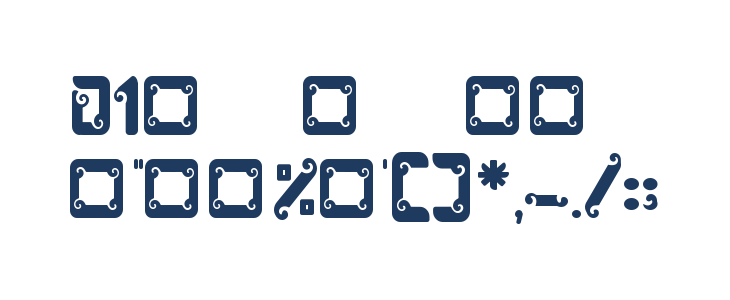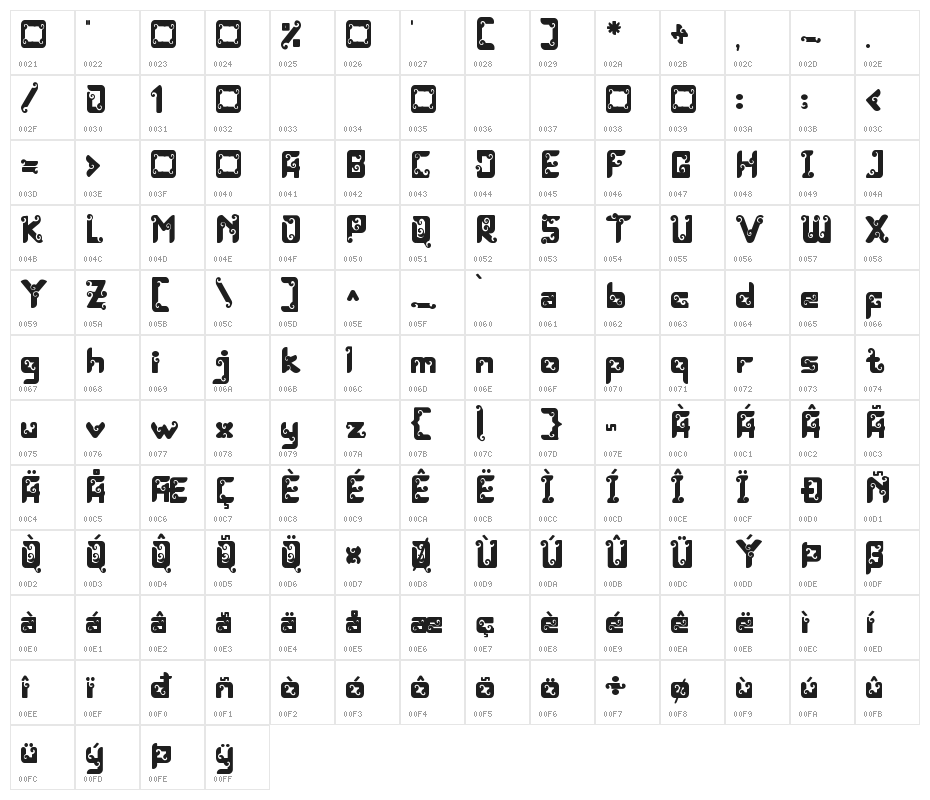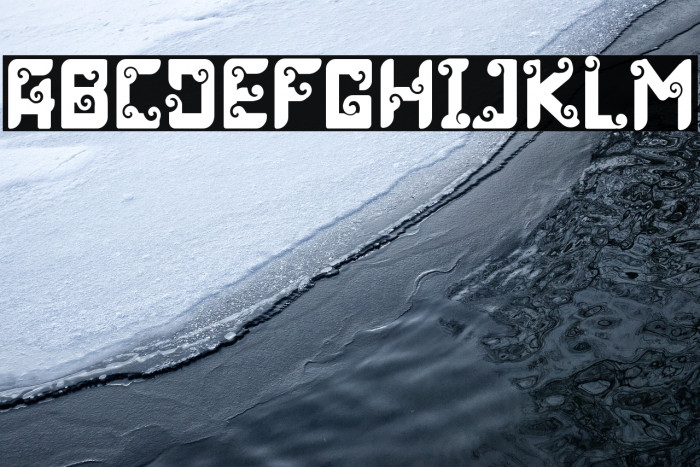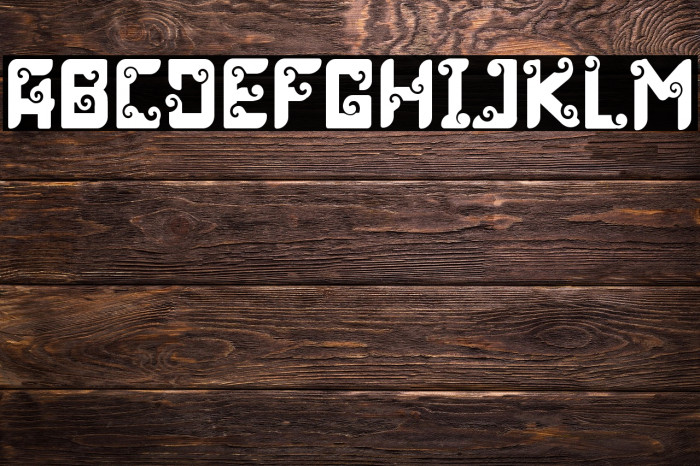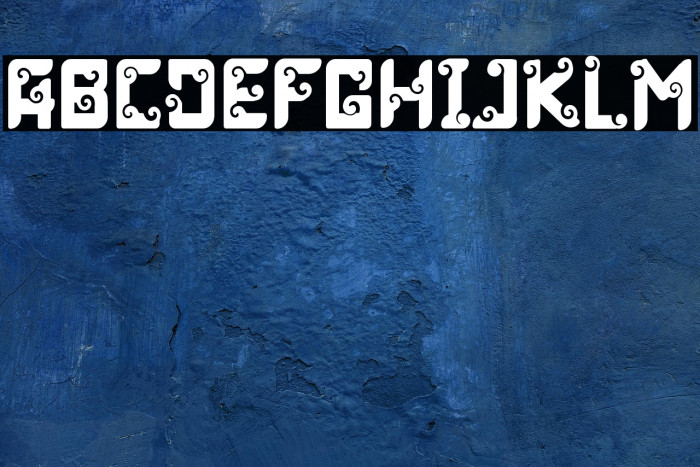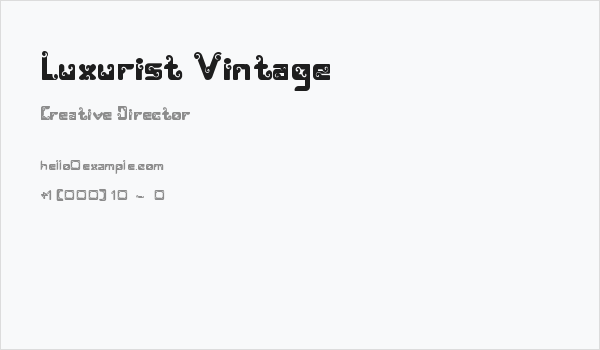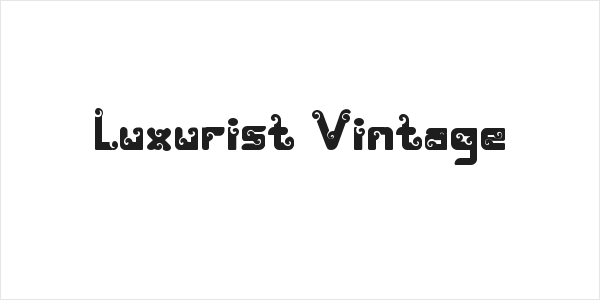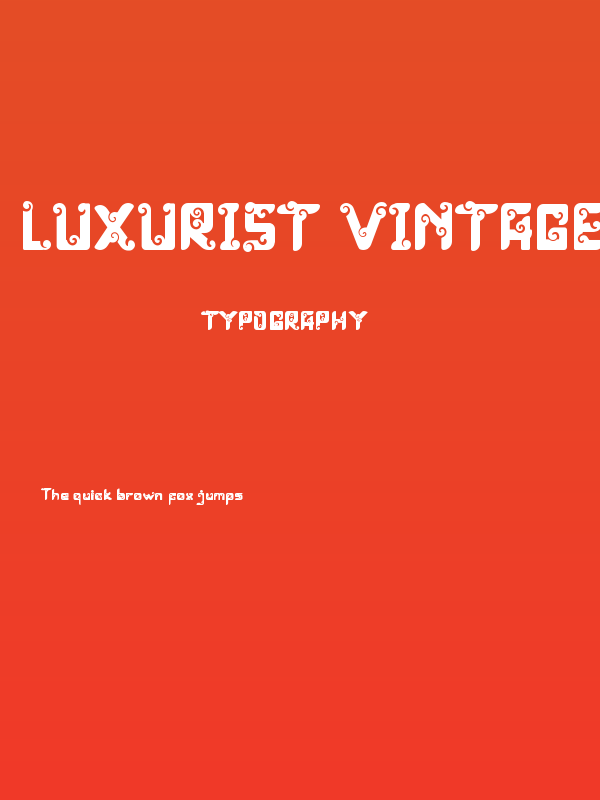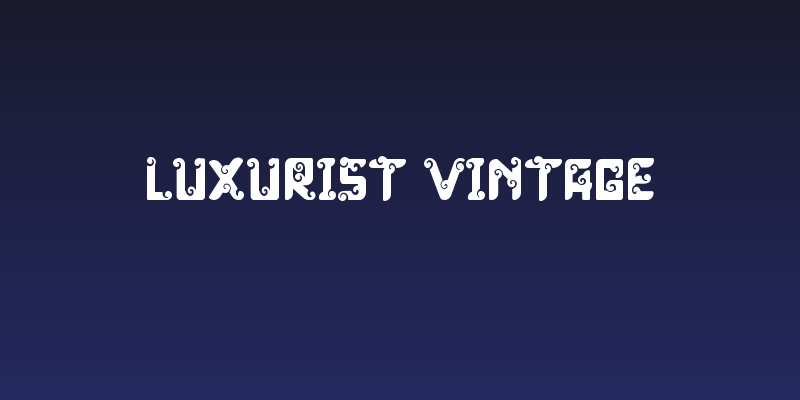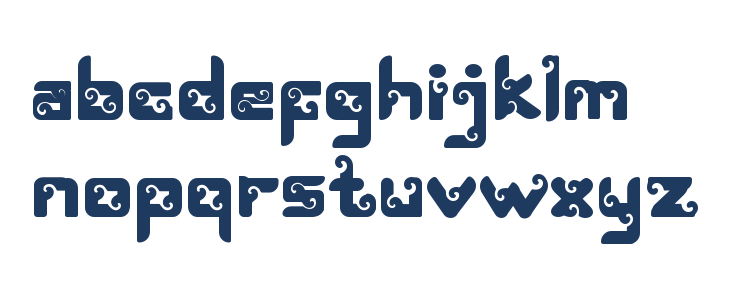
Luxurist Vintage Font
Luxurist Vintage Description
This font features a unique and ornate design, characterized by its bold and decorative elements. Each letter is adorned with intricate swirls and curls, giving it a luxurious and vintage feel. The characters are bold and have a strong presence, making them suitable for eye-catching designs. The font maintains a consistent weight throughout, with a medium contrast between the thick and thin strokes. The spacing between characters is normal, allowing for readability while maintaining its decorative style.
| Overall Style | Vintage, Decorative |
| Use Case | Headlines, Logos, Decorative text |
| Proposed Projects | Ideal for vintage-themed posters, luxury branding, decorative invitations, and artistic projects. |